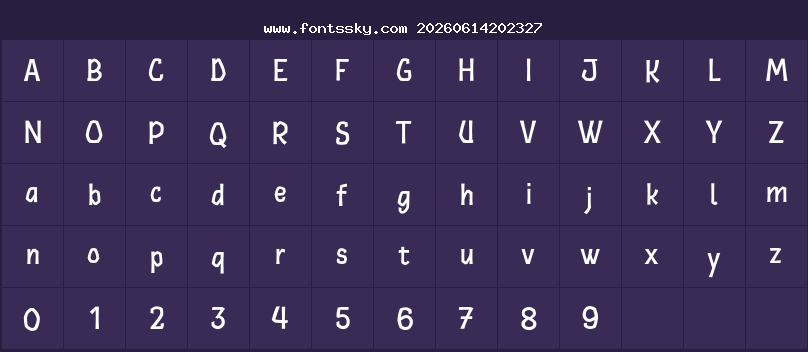
Canarina Preview
• Font Name: Canarina
• Full Font Name: Canarina Regular
• Designer: Ariel Martín Pérez
• Manufacturer: Tunera Type Foundry
About Canarina.otf
Canarina.otf is a modern, elegant sans-serif font designed for ultimate readability and visual harmony. Perfect for branding, headlines, web design, and print materials.